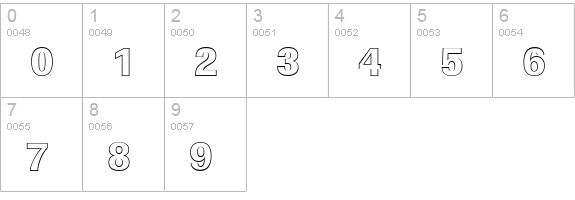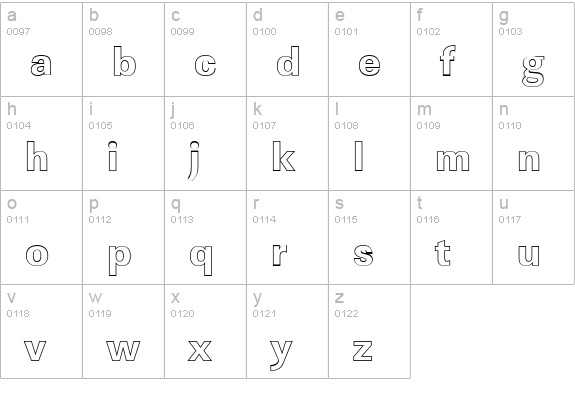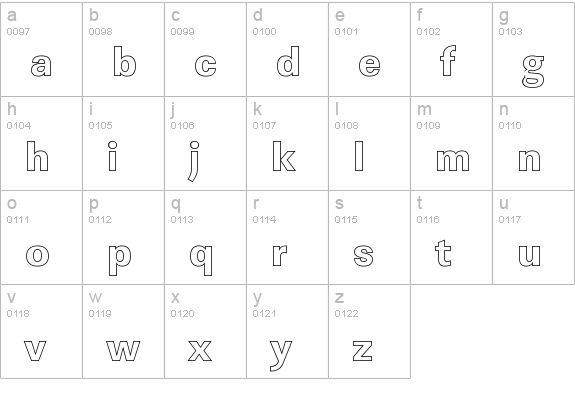
LinearOu-Xbold-Regular is the standard, neutral variant in the LinearOu typeface family \xE2\x80\x94 well suited to general body text, paragraphs, and standard typographic work.
LinearOu-Xbold-Regular font is a modern and sleek typeface that exudes sophistication and professionalism. Its clean lines and bold design make it perfect for a variety of applications, from branding to editorial design. The font's versatility allows it to be used in both digital and print projects, adding a touch of elegance to any design. What sets LinearOu-Xbold-Regular font apart is not only its stylish appearance but also the fact that it is completely free to download. That's right, this high-quality font can be easily accessed at FontsMarket.com without any cost. Whether you're a designer looking to enhance your projects or an individual seeking a polished and refined font for personal use, LinearOu-Xbold-Regular font is an excellent choice that won't break the bank. Don't miss out on the opportunity to elevate your designs with this exceptional font that combines modern aesthetics with timeless elegance. Download LinearOu-Xbold-Regular font today from FontsMarket.com and start creating stunning visuals that are sure to leave a lasting impression.